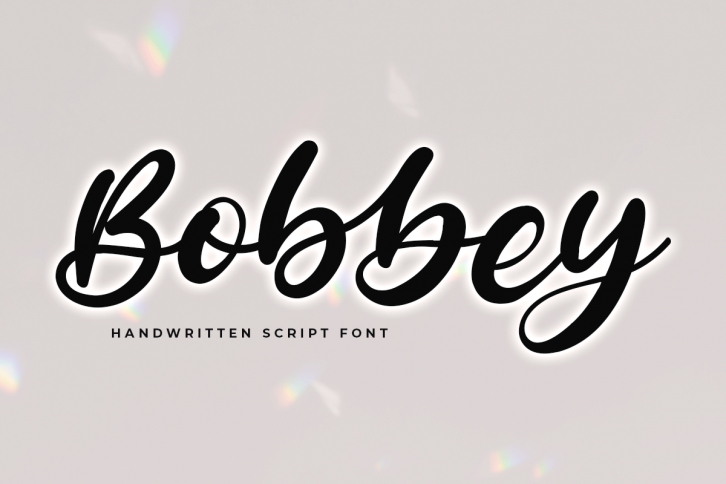
Bobbey is a bold and quirky script font. It looks great on wedding invitations, thank you cards, quotes, greeting cards, logos, business cards and every other design which needs a customized touch.